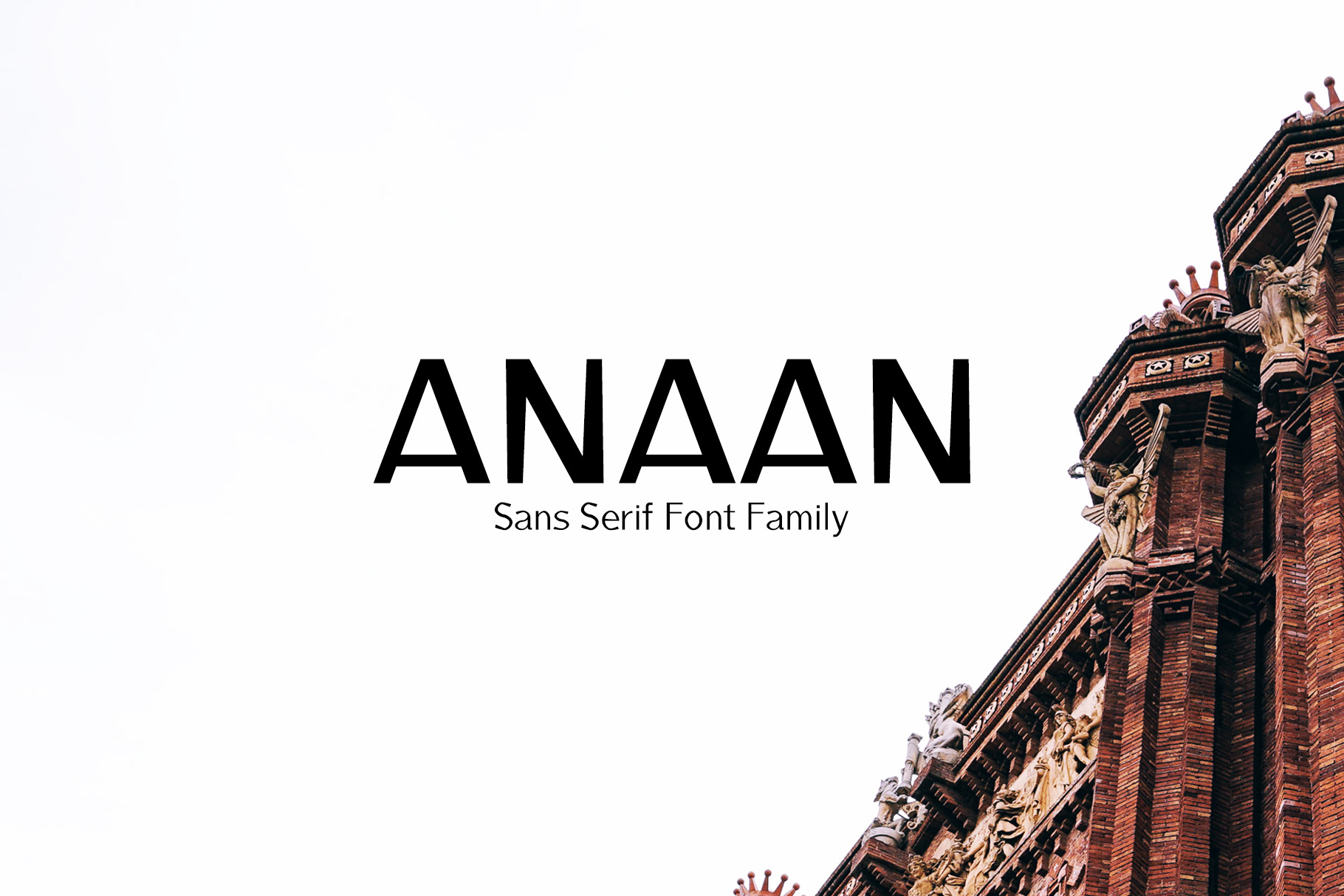
Anaan Sans Serif Font is a modern and professional typeface designed for crafting, wedding invitations, branding, logos, banners, templates, resume, presentations, magazine, posters, notices, titles, name card, web layouts, headers, weddings, social media, stationery and advertising, and other any business related.